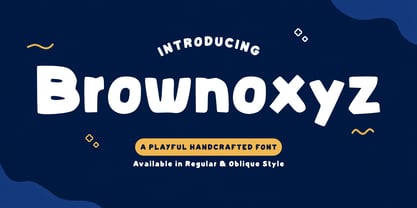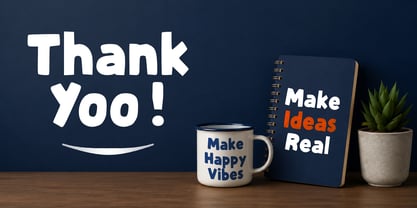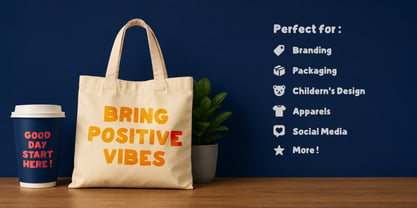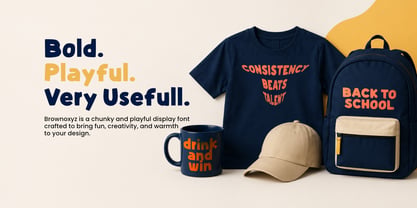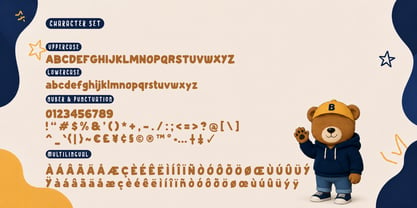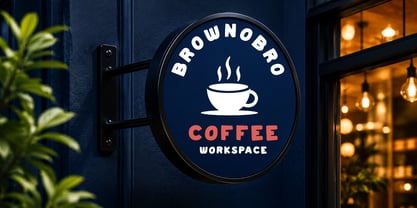
Brownoxyz
Die Schriftfamilie Brownoxyz wurde von Wahyu Eka Prasetya, Dian Angga Marytama entworfen und von Letterytz CalliType veröffentlicht. Brownoxyz enthält 2 Stile und Familienpaketoptionen. Mehr über diese Familie
Brownoxyz is a handcrafted display font that embraces the beauty of hand-drawn lettering with bold, rounded, and organic letterforms. Every character is carefully designed with natural imperfections, giving your typography an authentic, warm, and expressive personality. Its chunky shapes and playful rhythm create a friendly appearance while maintaining excellent readability across both print and digital media.
Inspired by hand lettering and sketchbook creativity, Brownoxyz is perfect for designers looking to add a genuine handmade touch to branding, logos, packaging, posters, children’s books, social media graphics, apparel, stickers, merchandise, and creative editorial projects. Whether you’re building a fun brand identity or crafting eye-catching headlines, Brownoxyz delivers charm, originality, and character that digital-perfect fonts simply can’t replicate.
Features
• Uppercase & Lowercase
• Numbers & Punctuation
• Multilingual Support
• Hand-Drawn Letterforms
• Organic Character Shapes
• Bold Display Style
• Regular & Slant
Perfect For
Logotypes, Branding, Packaging, Children’s Products, Book Covers, Posters, Headlines, Apparel Design, Stickers, Social Media Graphics, Craft Projects, Merchandise, and Creative Advertising.